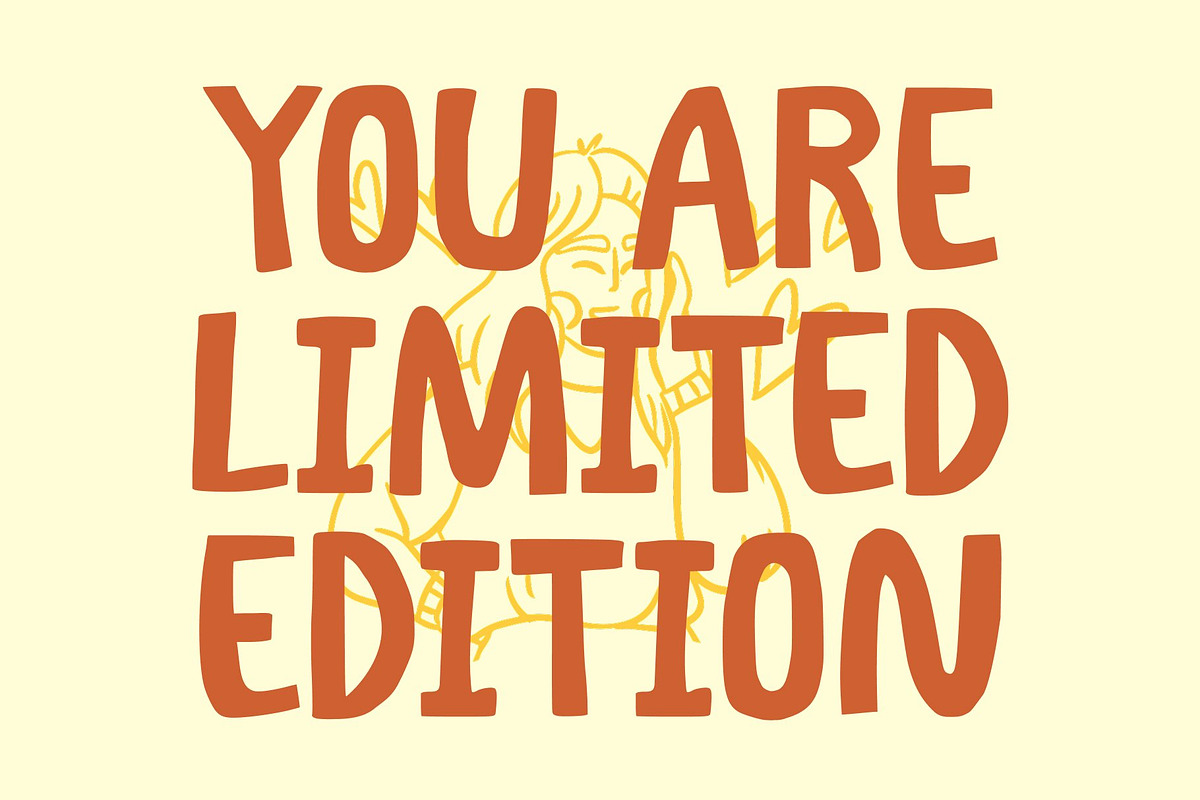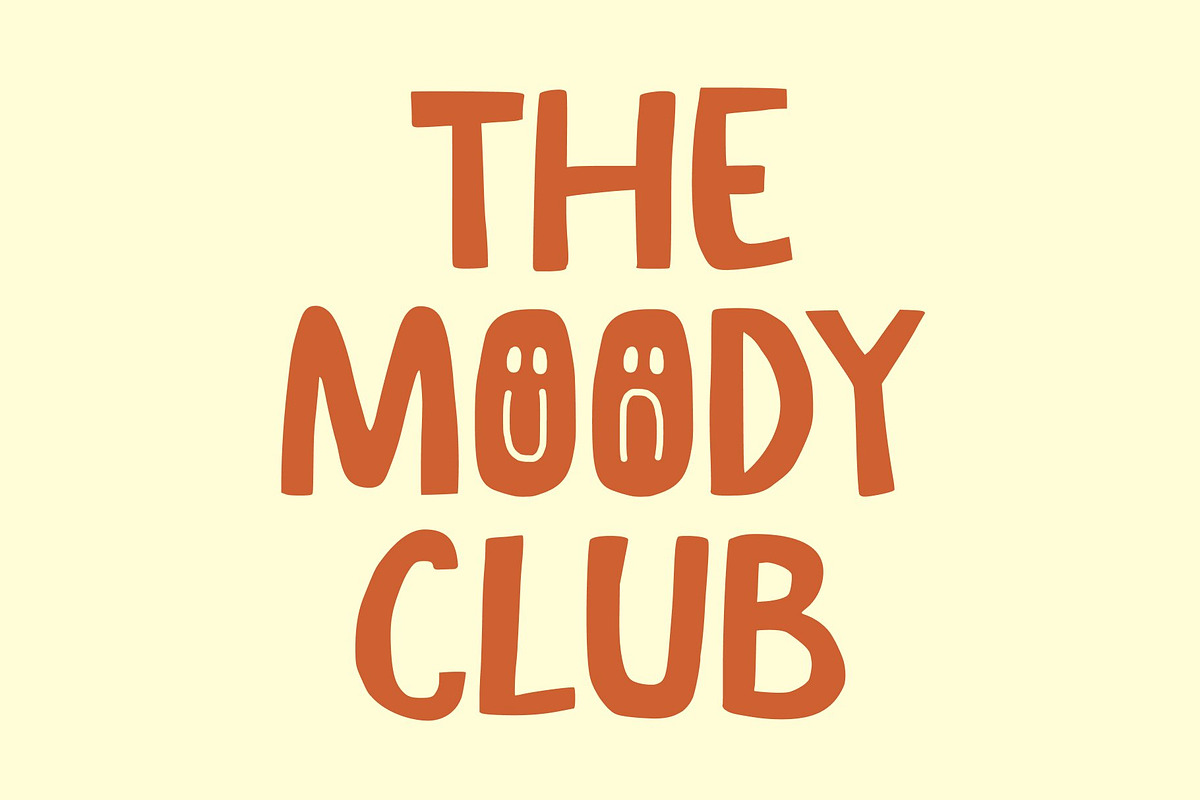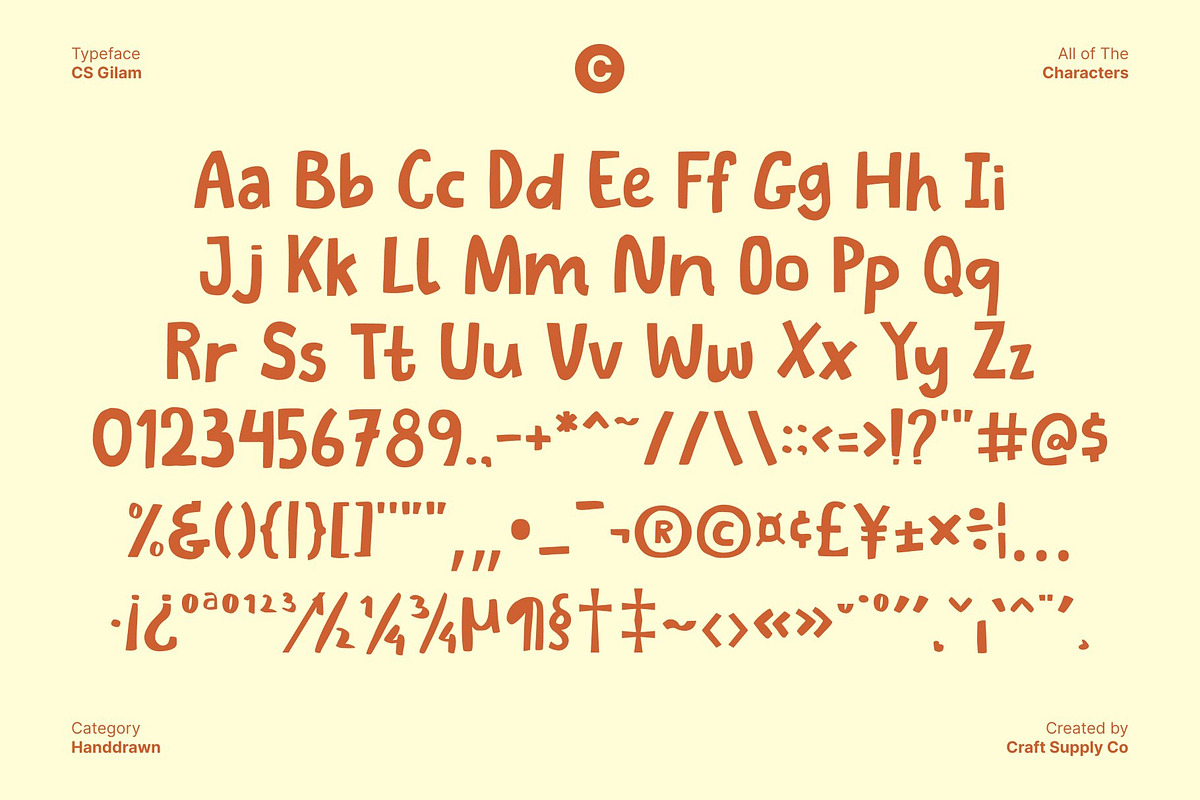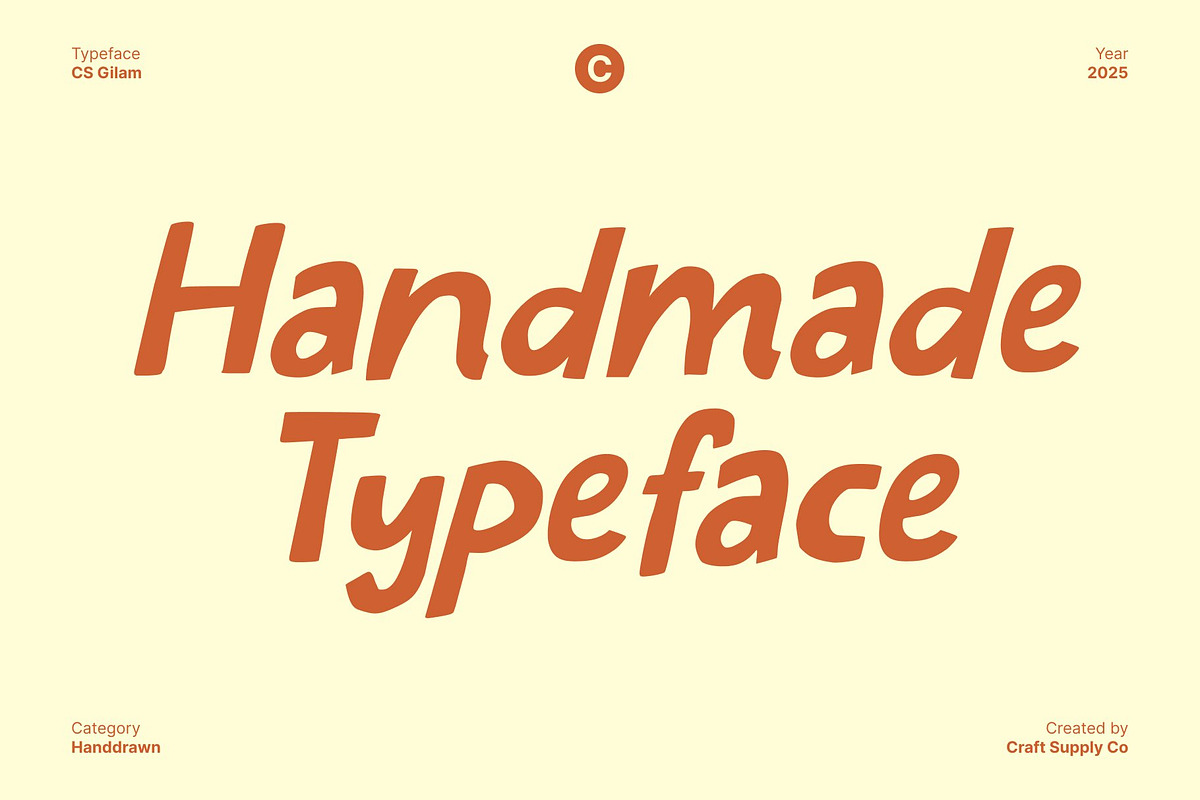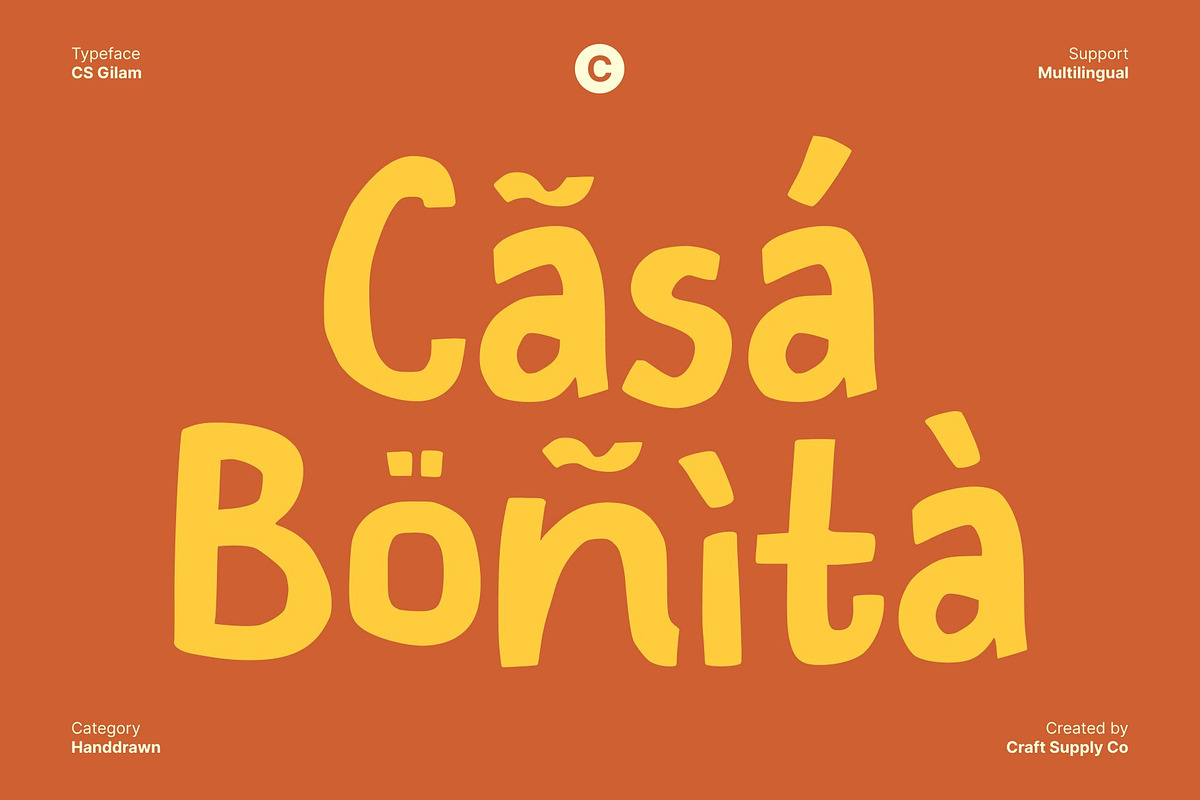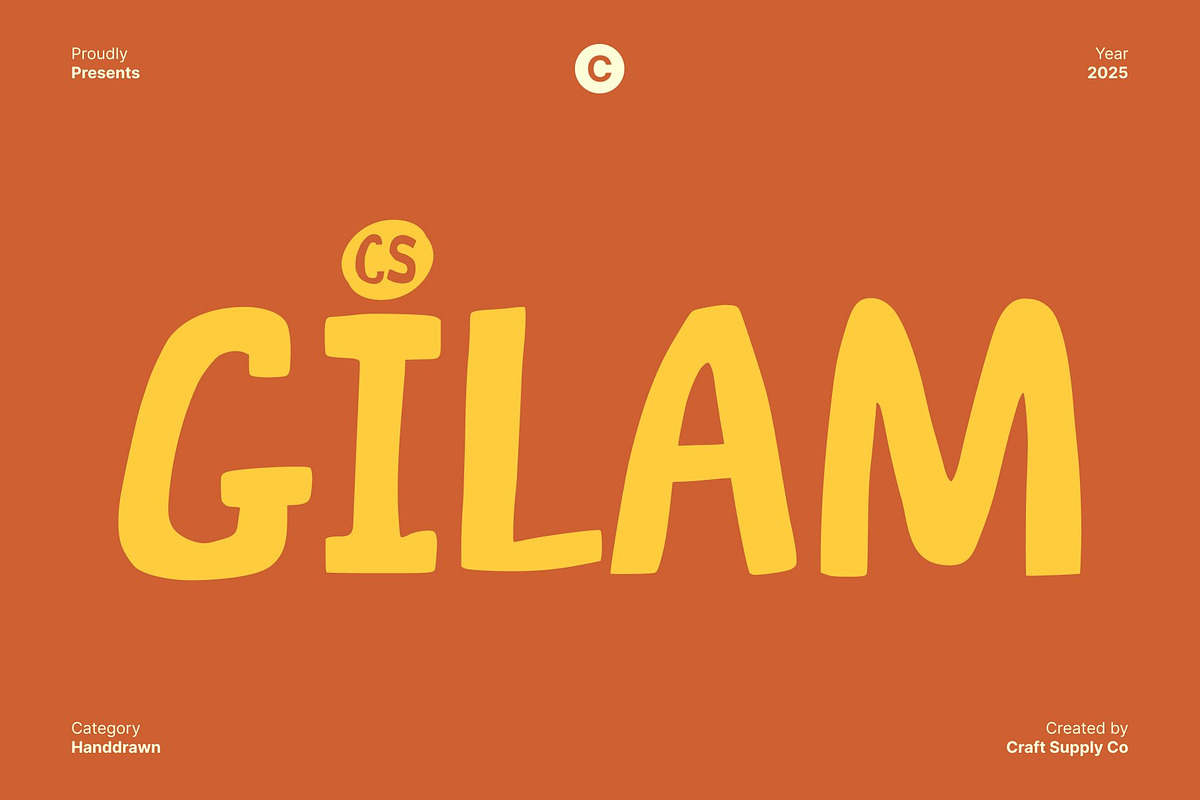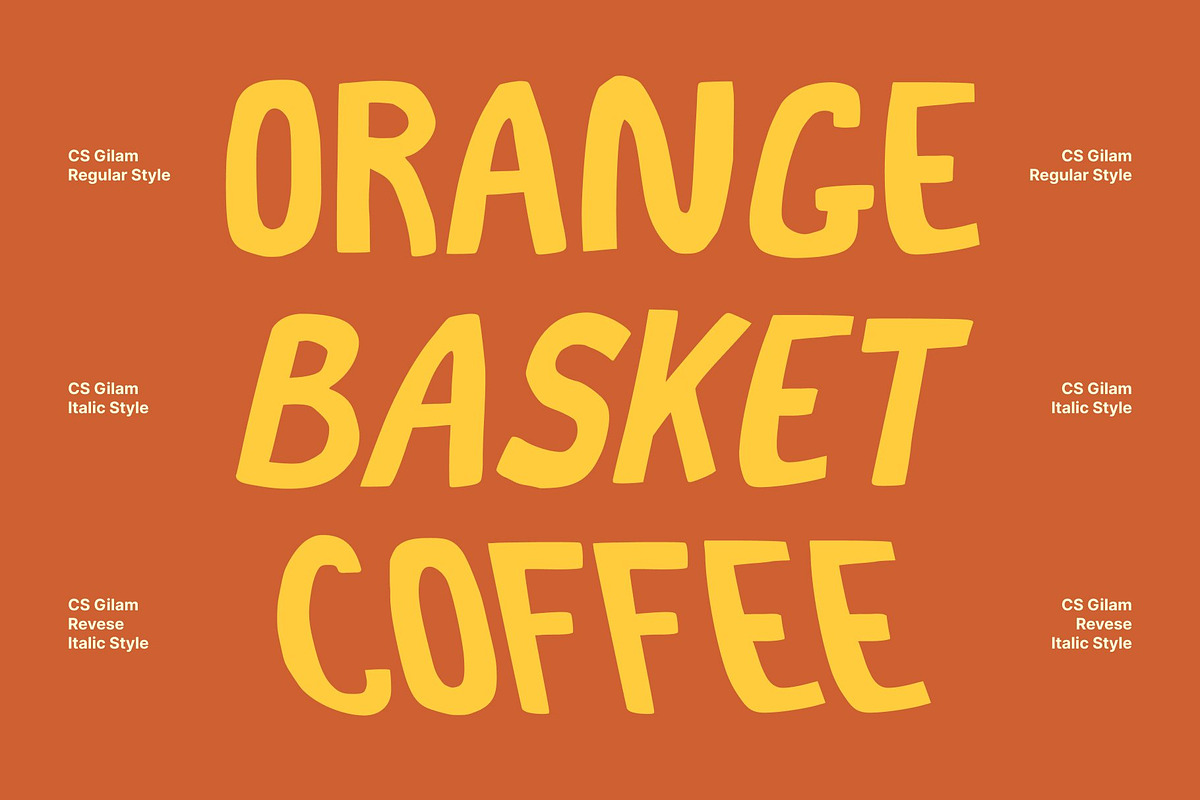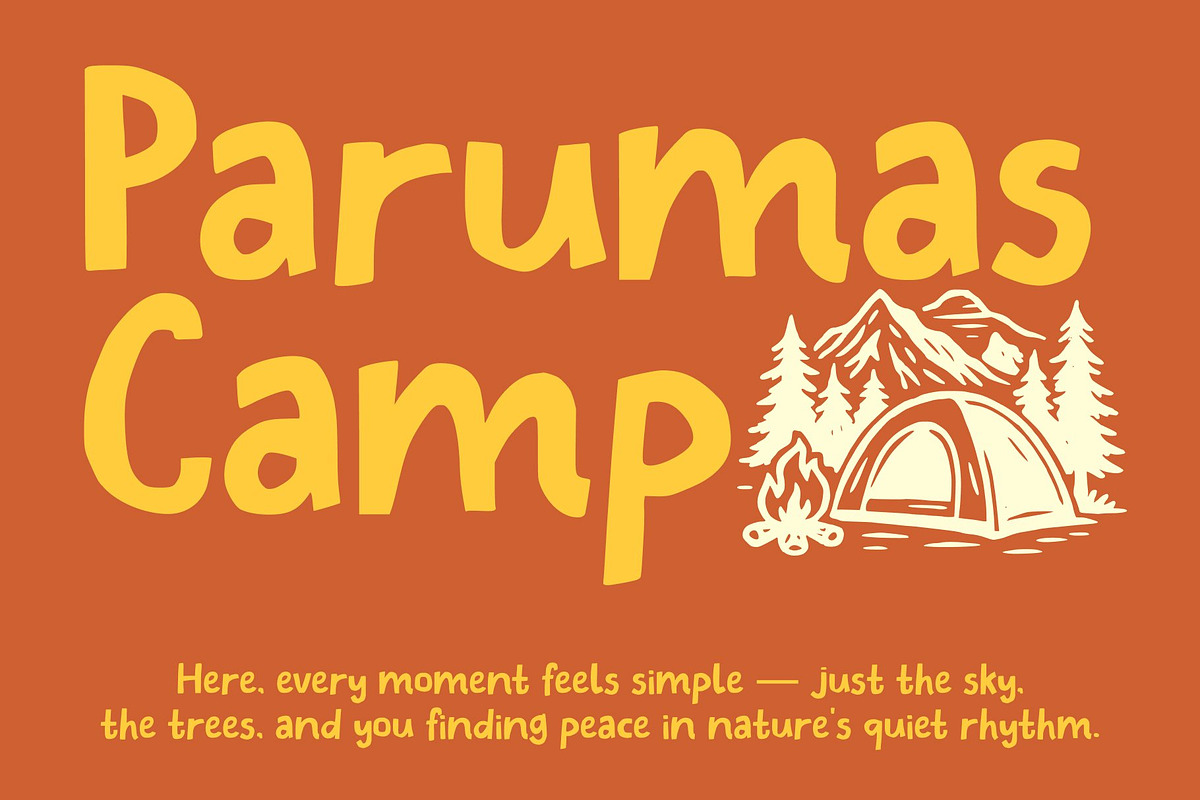
CS Gilam – Quirky Font
CS Gilam – Quirky Handwritten Font with Bold Expressive Style Bold and Quirky Handwritten with Modern Appeal This is a handwritten display font that balances boldness with playful, modern energy. Its distinctive letterforms capture the lively charm of natural pen strokes while introducing a fresh, quirky twist. Perfect for designs that aim to feel approachable, dynamic, and visually engaging, it brings personality to every word. Expressive Letterforms for Visual Impact The font’s bold, fluid strokes create strong visual presence while maintaining a casual, handcrafted aesthetic. Each character carries movement and rhythm, making it ideal for headlines, book titles, or attention-grabbing display text. This font ensures your designs communicate energy, creativity, and style. Warm and Authentic for Personal Projects With its natural, pen-drawn texture, this font adds a warm and human touch to any design. This authenticity makes it perfect for personal branding, invitations, or creative projects where a friendly, expressive feel is desired. The font conveys a sense of care, individuality, and artistic charm. Perfect for Branding, Book Titles, and Casual Designs This font excels across projects that demand both visual impact and personality. From playful book covers and creative branding to casual invitations or editorial designs, it transforms text into vibrant, memorable typography. Its combination of bold style, modern funk, and expressive flow ensures your designs stand out with warmth and authenticity. * Download Type Speciment: * --- What you get : - CS Gilam Regular - CS Gilam Italic - CS Gilam Reverse Italic Features : - Uppercase and lowercase characters - Numerals and Punctuation (OpenType Standard) - Accents (Supports Multilingual Characters) - PUA Encoding --- You can use this typeface without needing any specialized software.* --- If you have any inquiries or need assistance, please feel free to contact us. We appreciate your support in enhancing your creative projects! Best regards, Craft Supply Co.